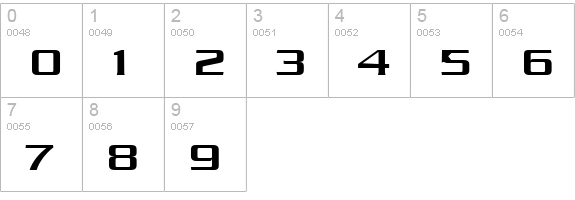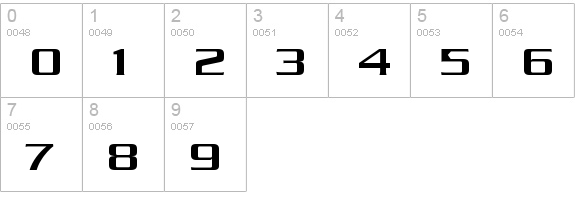
Chaney Wide Normal Font Details
Chaney Wide Normal is the standard, neutral, extended-width variant in the Chaney typeface family \xE2\x80\x94 well suited to general body text, paragraphs, and standard typographic work.
Chaney Wide Normal font is a versatile and modern typeface that exudes sophistication and professionalism. With its clean lines and balanced proportions, this font is perfect for a wide range of design projects, from branding to editorial design. The wide spacing between characters gives it a distinctive and eye-catching look that will make your text stand out. The best part about Chaney Wide Normal font is that it is completely free to download at FontsMarket.com. This means you can easily access and use this high-quality font in your projects without any cost. Whether you're working on a personal project or a commercial design, Chaney Wide Normal font is a great choice that will elevate your work to the next level. Don't miss out on this amazing font – download it today and let your creativity shine!